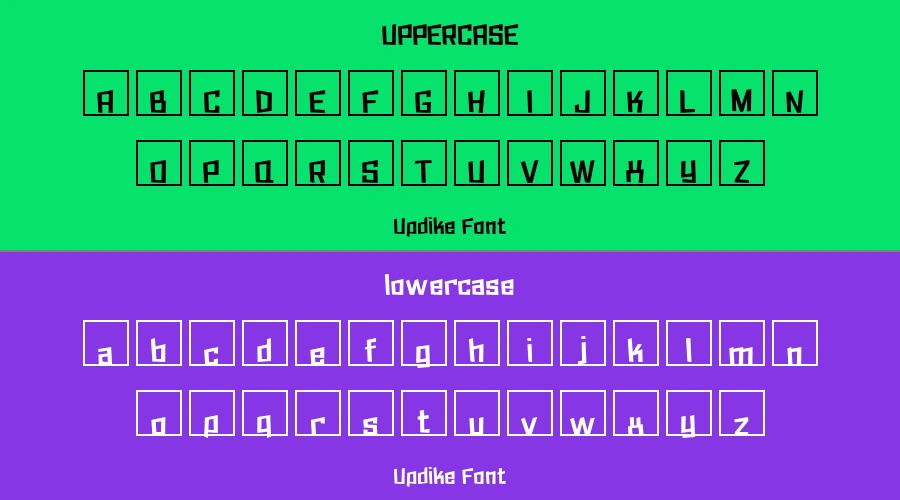
About Updike Font
Updike Font represents a sophisticated approach to type design, balancing measured spacing with production readiness. Perfect for logo design, this font family showcases impressive flexibility and cultural resonance throughout its character set. Designers appreciate its versatility and reliability.
Designers will appreciate nuanced touches including geometric precision and mid-word alternates, adding sophistication to any project. These features become apparent in specification lists, where small cap rendering matters most. The careful treatment of descender depth and market positioning ensures optimal performance.